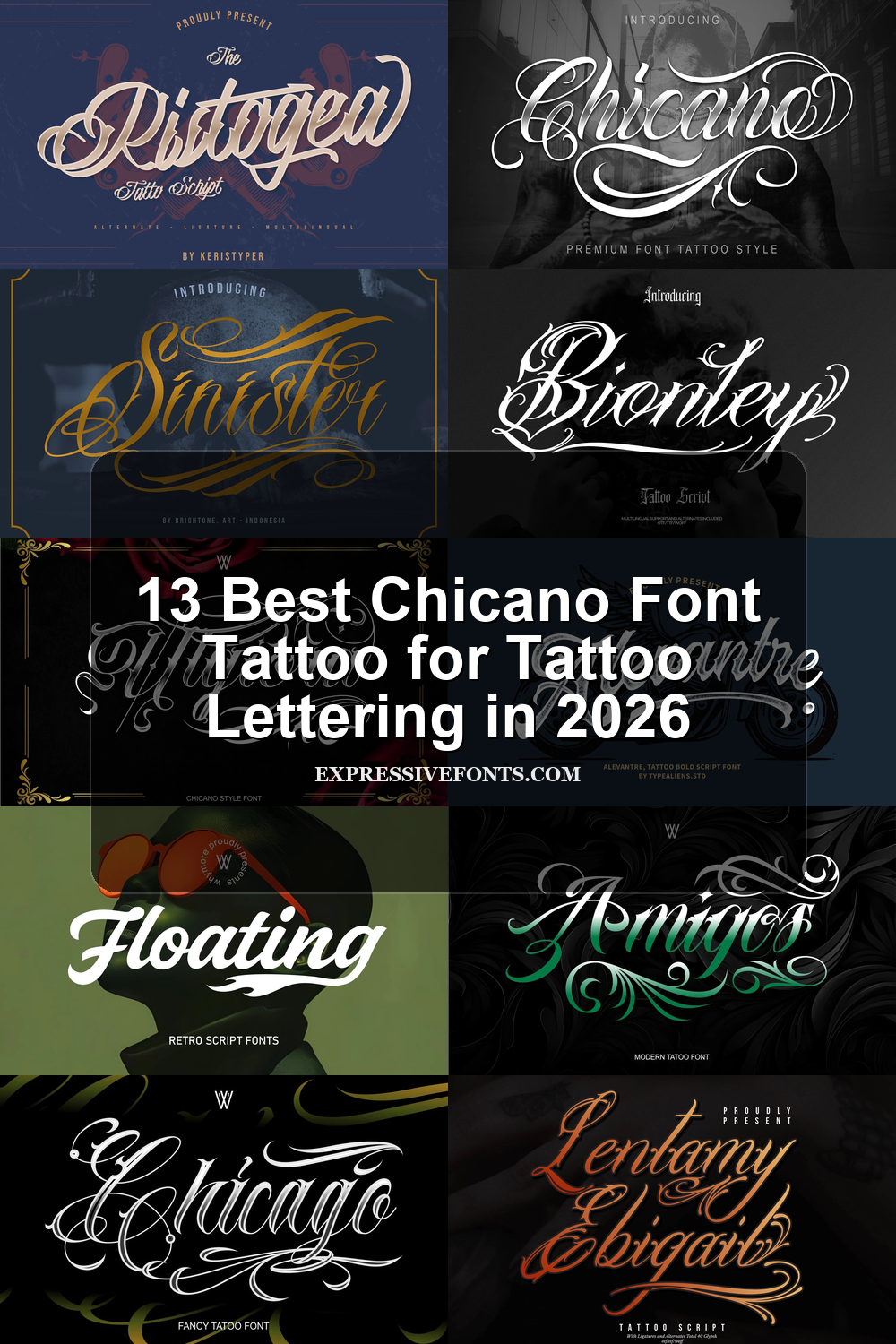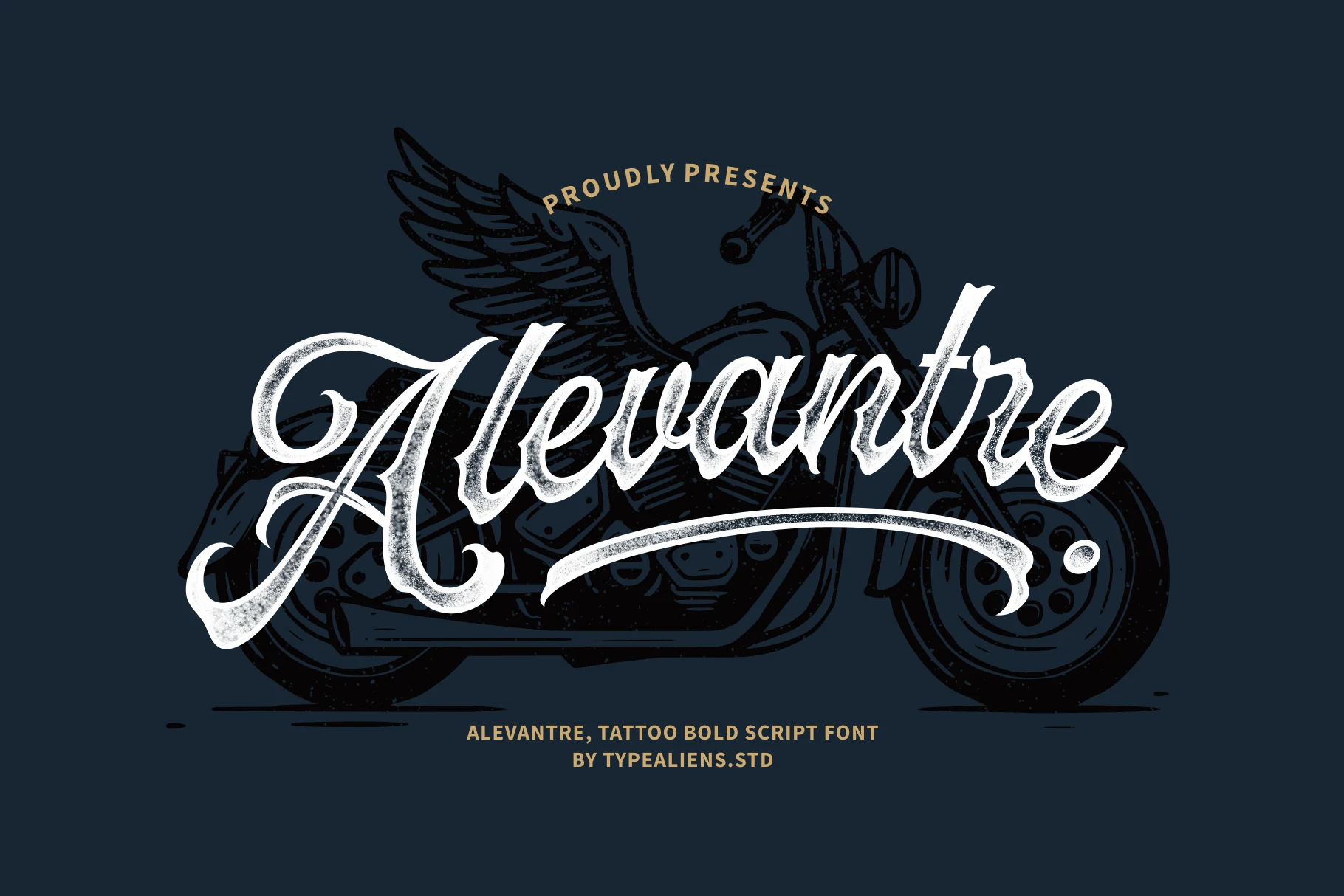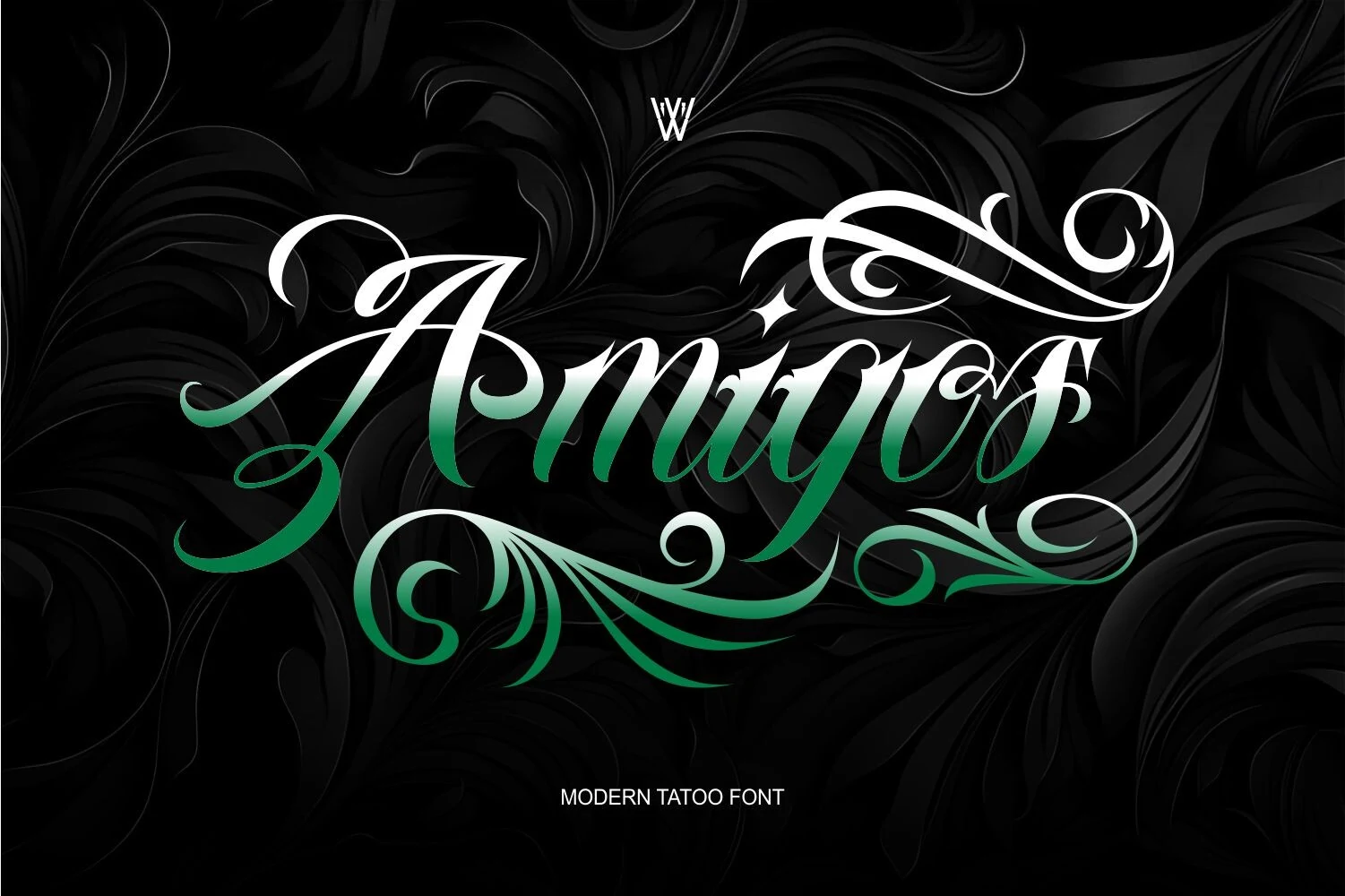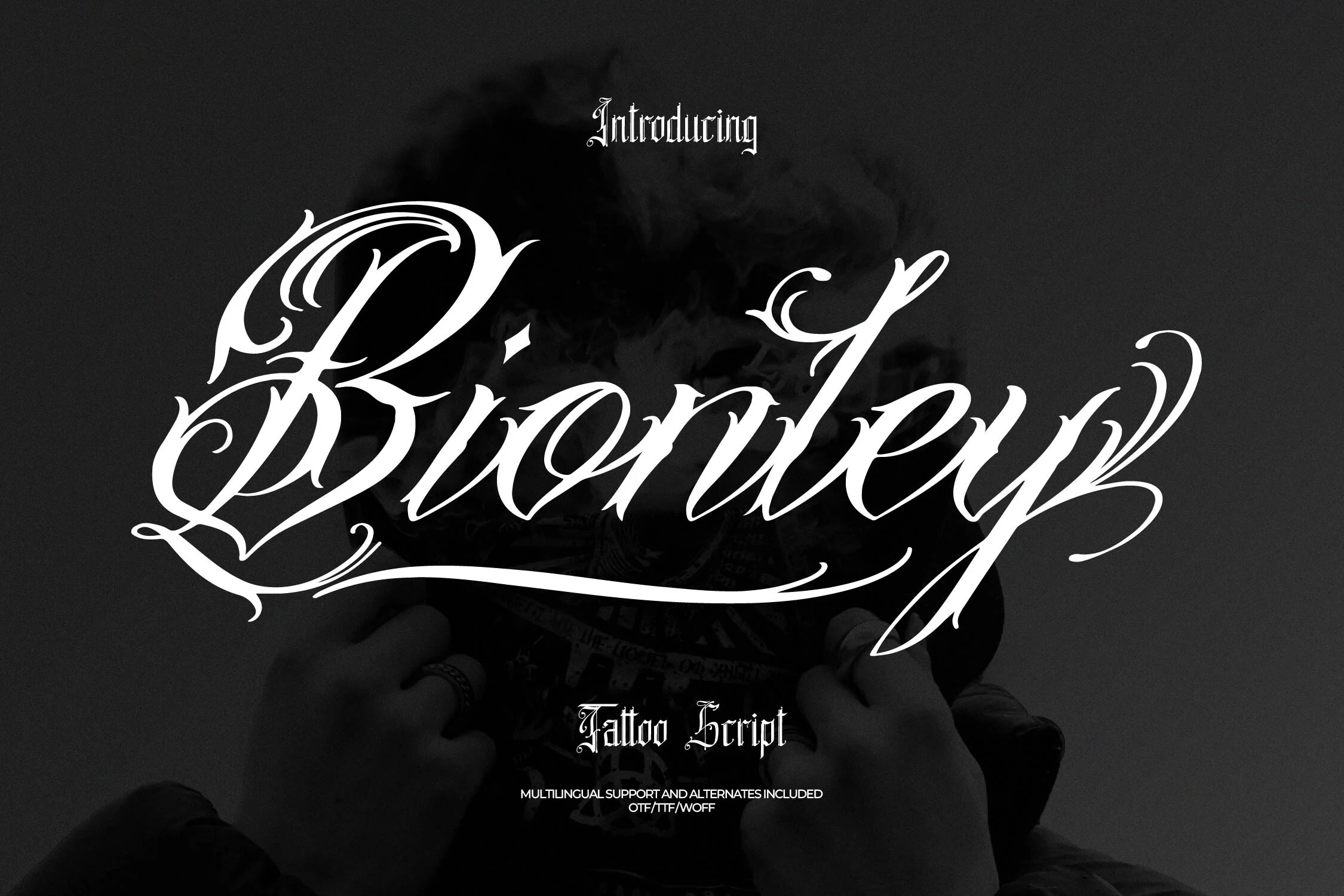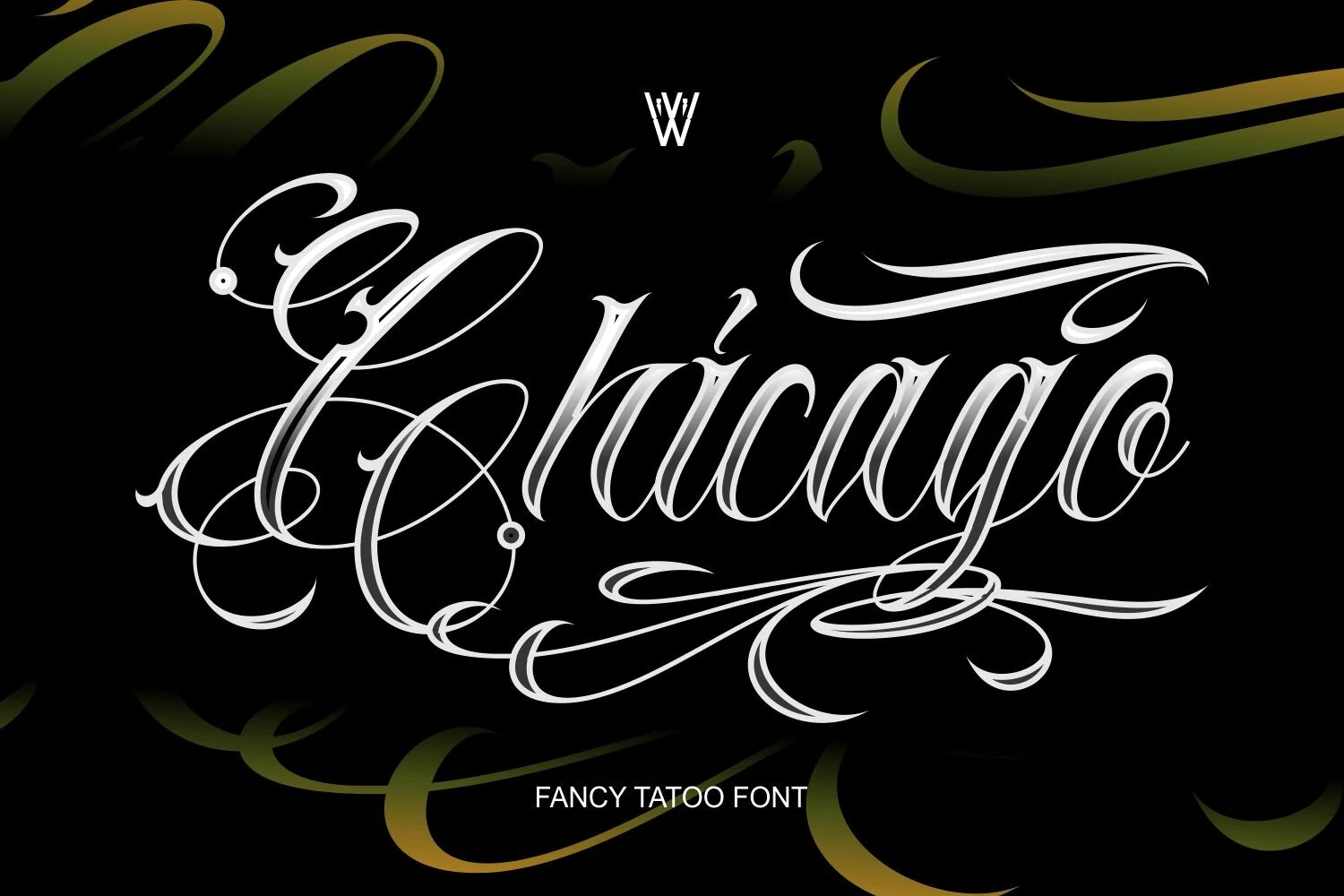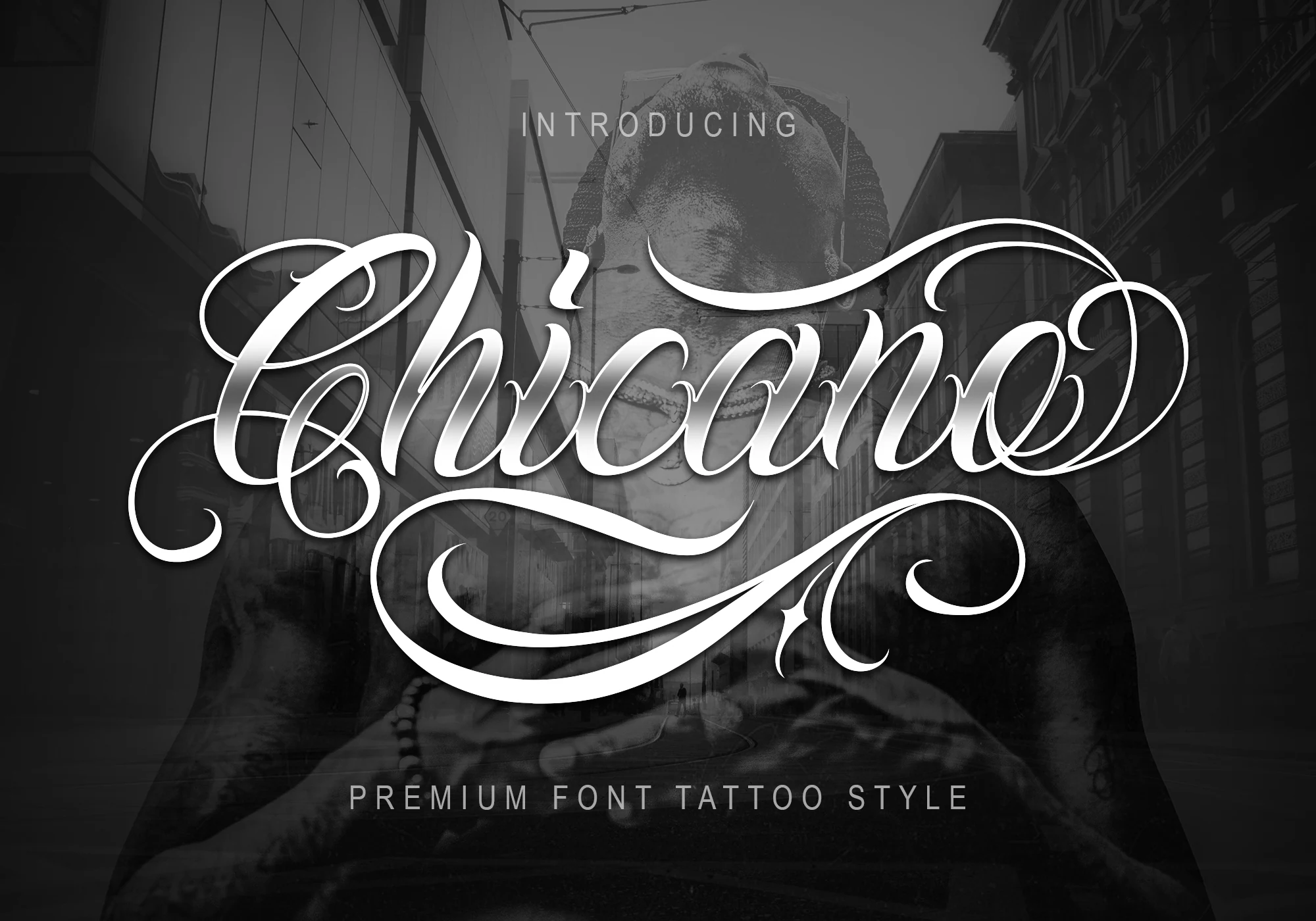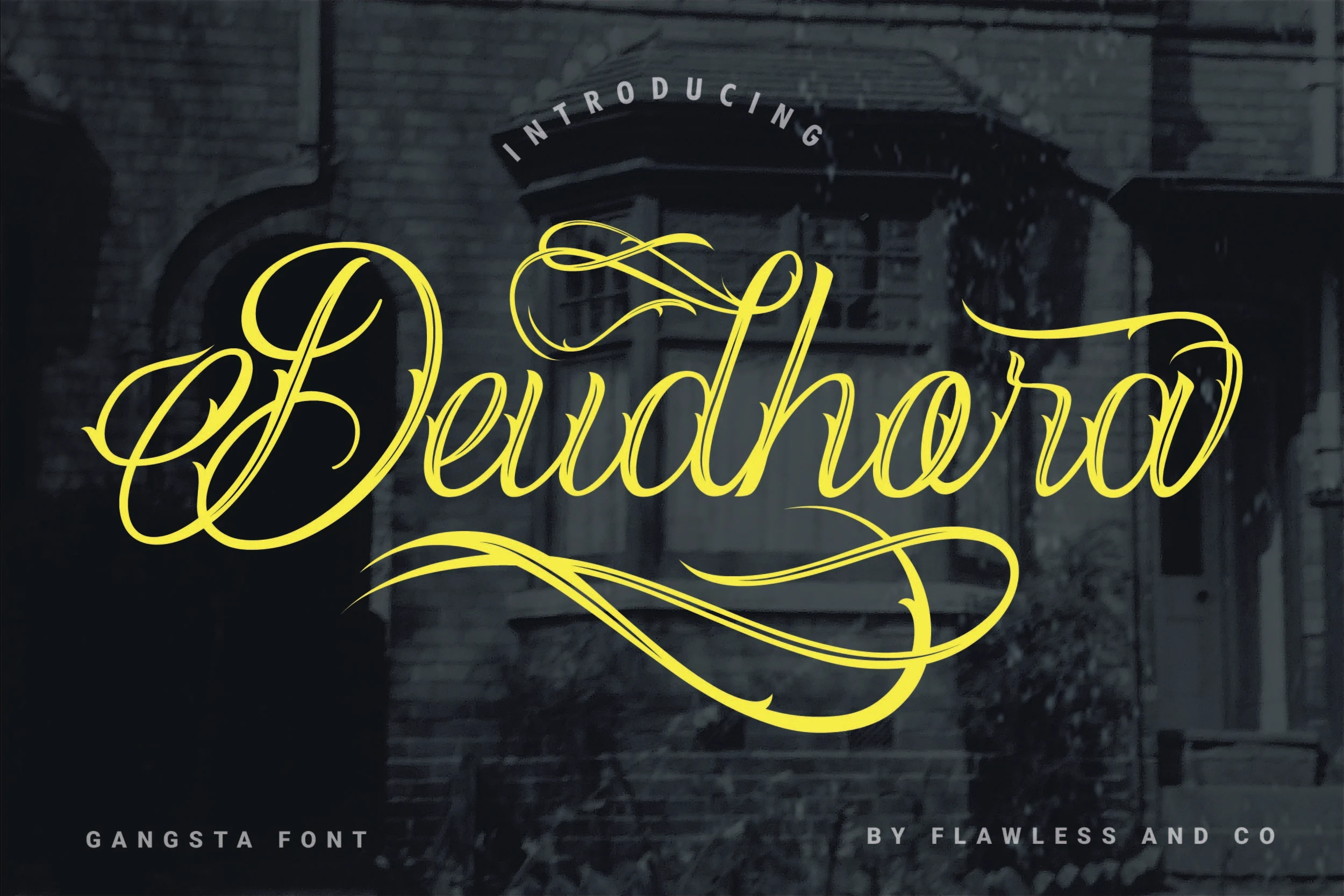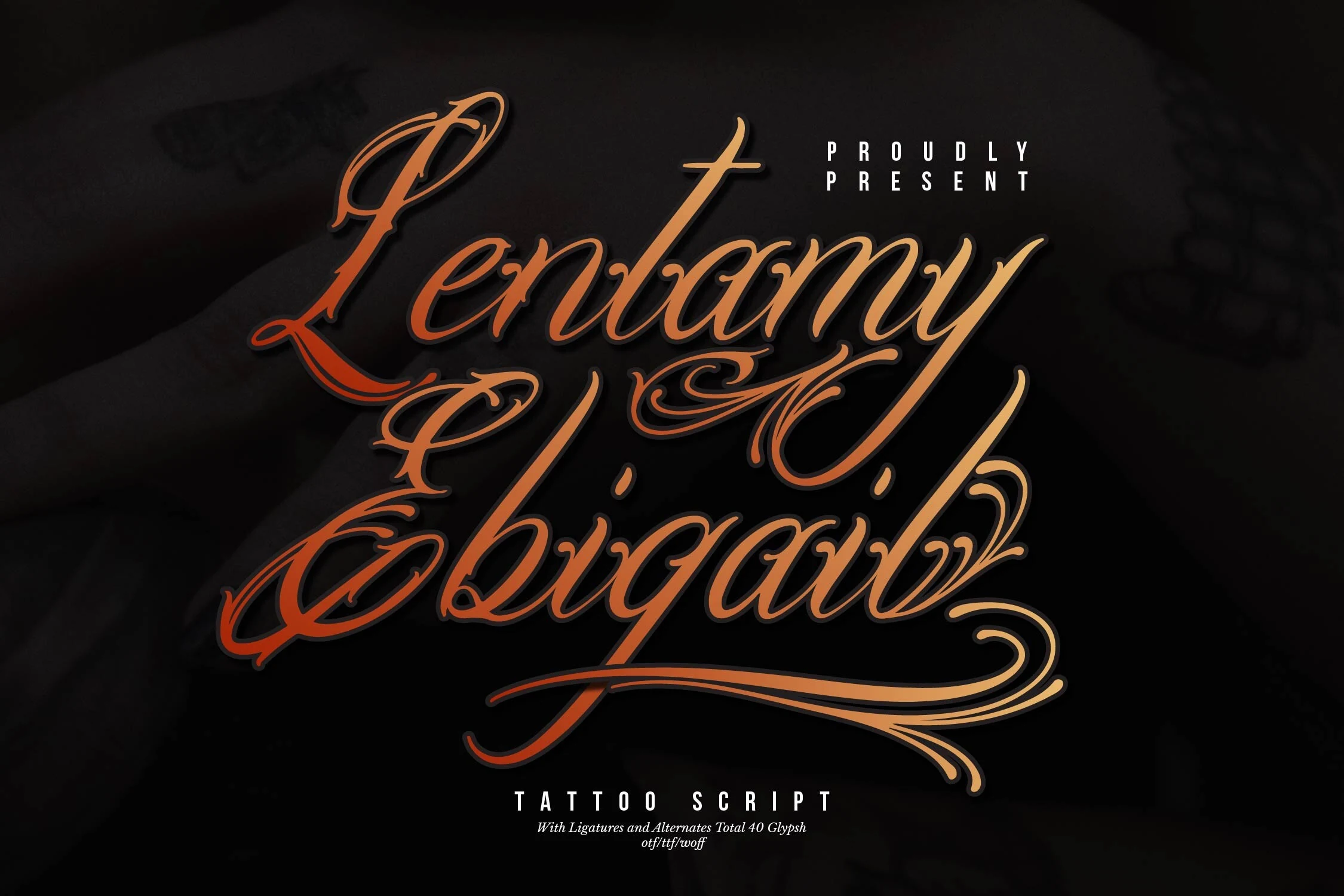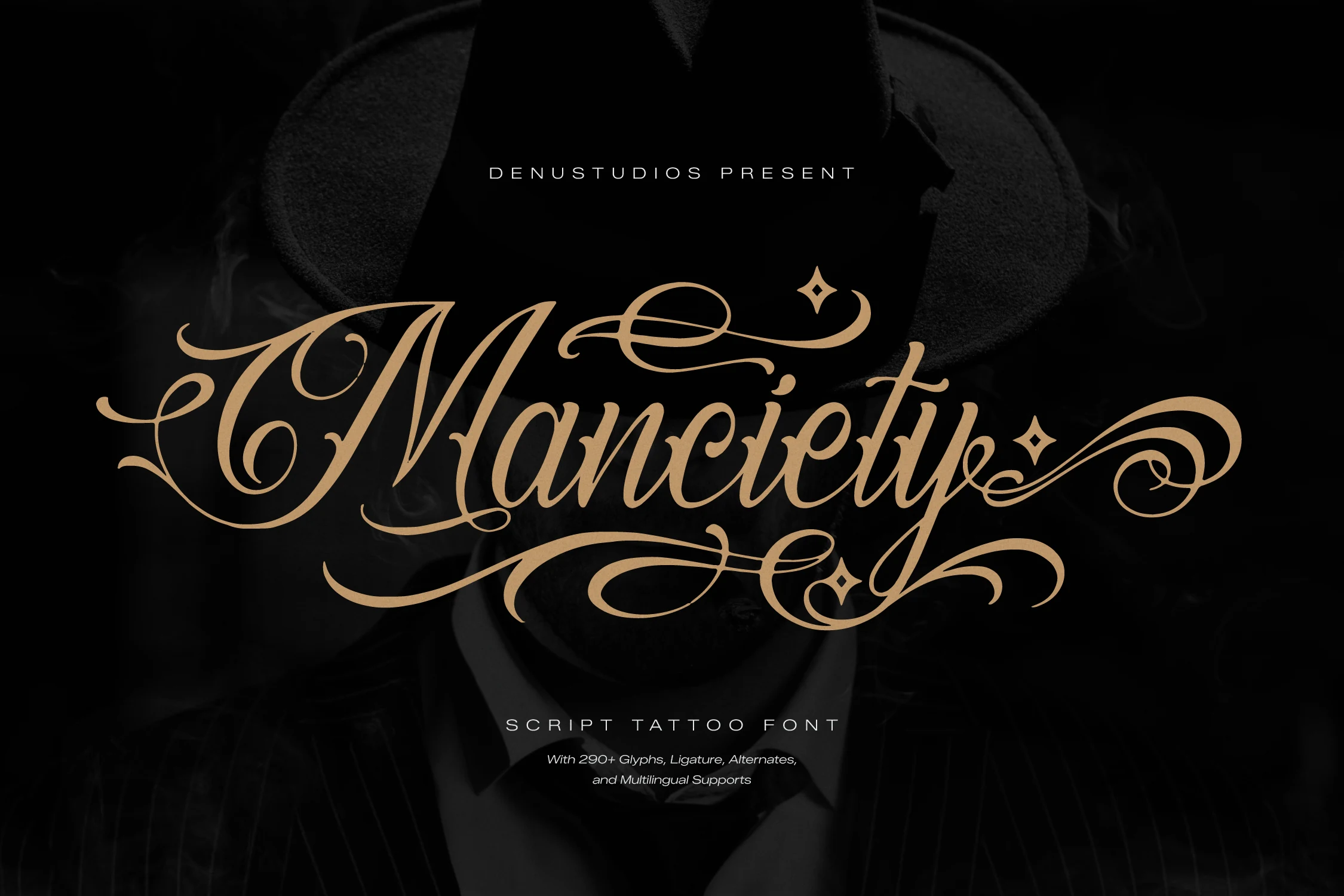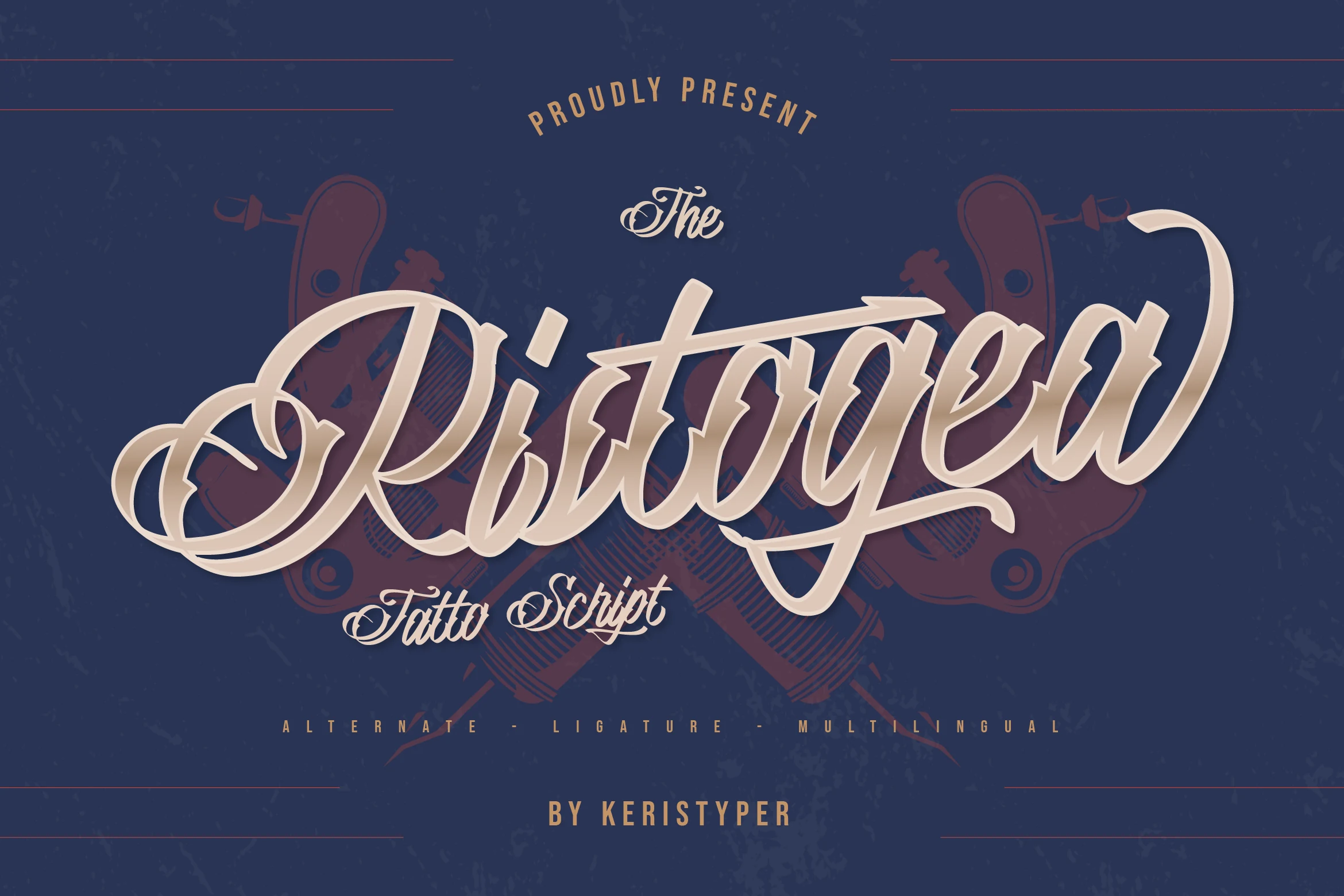
13 Best Chicano Font Tattoo for Tattoo Lettering in 2026
This tattoo-lettering collection spans refined, bold, playful, and decorative directions, from connected scripts with blackletter edges to distressed textures and forward-slanting flourishes. Choose by visible construction and scale: dense joins and fine contrasts suit large names, while clearer silhouettes work better for logos, merchandise, social graphics, and other short-format designs where readability and visual character matter.
Chicano Font Tattoo: Blackletter-Edged Scripts
For Chicano Font Tattoo work, these connected scripts combine pointed terminals, blackletter cues, and dense swashes, giving them a heavier tattoo identity than the collection’s softer retro or slanted display styles.
Chicago Font
Chicago Font displayed in ornate, high-contrast calligraphic lettering with connected cursive forms and intricate decorative swashes.
Chicago Font builds a complex, multi-layered script from high-contrast connected strokes and extended swashes. Its details form an elaborate centerpiece, but clarity drops quickly at small sizes. For a Chicano Font Tattoo design, use it for large names, branding, or vintage artwork rather than long wording.
Amigos Font
Amigos Font features connected calligraphic lettering with high stroke contrast, pointed terminals, and elaborate decorative swashes.
Sharp, pointed terminals give Amigos Font a cutting finish, while its connected, high-contrast script and extreme flourishes create a forceful display presence. Keep the wording short for readability. Compatibility with Procreate and Photoshop also makes it practical for digital tattoo designs, logos, and headline-based branding.
Ulgiora Font
Ulgiora Font features connected calligraphic letterforms, high-contrast strokes, and ornate decorative flourishes.
Ulgiora Font anchors flowing calligraphy with Chicano-style blackletter terminals, giving its connected, high-contrast strokes a recognizable tattoo edge. The stable baseline helps keep logos and tattoo layouts controlled, although dense terminals need display sizing. For a Chicano Font Tattoo, it suits branding, logos, and fashion-led artwork.
Chicano Font
Chicano Font featuring an ornate calligraphic script with connected cursive forms, sweeping swashes, and high stroke contrast.
Chicano Font uses bold mixed-width strokes to create a strong silhouette, then sharp terminals and sweeping flourishes add calligraphic detail. It is most effective for short phrases, titles, and logos; longer wording loses clarity as the connected forms and high contrast accumulate. For Chicano Font Tattoo lettering, work large.
Distressed and Retro Tattoo Scripts
For Chicano Font Tattoo layouts, these scripts rely on worn texture, strong weight, and retro movement, separating them from cleaner blackletter constructions while keeping their flourishes suited to posters, merchandise, and large personalized lettering.
Alevantre Font
Alevantre Font, a bold connected script with a distressed texture, pronounced rightward slant, and decorative swashes.
Alevantre Font stands apart through its distressed surface, bold rightward slant, and connected high-contrast lettering. Decorative swashes reinforce its worn tattoo-print character, but texture can muddy fine details. Use it at large scale for T-shirts, posters, or other display treatments instead of small copy.
Floating Script Font
Floating Script Font is a bold retro script with high contrast, connected flowing forms, a rightward slant, and a decorative swash on the final g.
Floating Script Font combines bold connected lettering with a pronounced rightward slant and a memorable final-g swash. That finishing gesture gives large headlines and posters a clear retro signature, while the flourished terminal becomes harder to manage in small tattoo text or compact applications.
Bionley Font
Bionley Font shown as a heavy connected script with high-contrast strokes, pointed terminals, and sweeping ornamental swashes.
Bionley Font has the heaviest presence here, pairing substantial weight with tapered terminals and sweeping swashes. The connected construction feels forceful, but longer wording can become crowded. Choose it for large quotes, invitations, or personalized designs where its strong silhouette can remain open and readable.
Ristogea Font
Ristogea Font preview showing a bold connected calligraphic script with high contrast and sweeping decorative swashes.
Ristogea Font uses swirl-driven initial and terminal strokes to give connected tattoo lettering a flexible signature. Strong contrast makes it effective on large logos, covers, posters, and merchandise, while the variation and flourishes make long-form reading unsuitable. It is especially adaptable when a mark needs a memorable finish.
How to Choose the Right Font
Choose a Chicano Font Tattoo face by matching construction to scale: blackletter terminals add recognition, distressed textures suit merchandise, and stable baselines help logos stay orderly. Reserve the most flourished options for short, large lettering, while heavier scripts handle forceful quotes. Test joins, thin strokes, and final swashes at the actual tattoo or print size before committing.